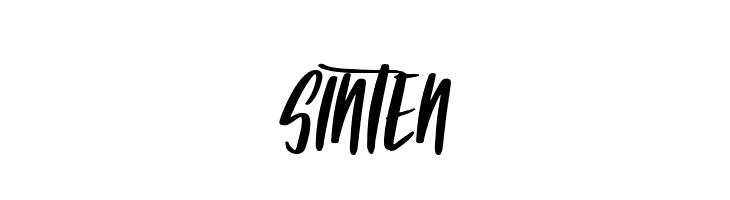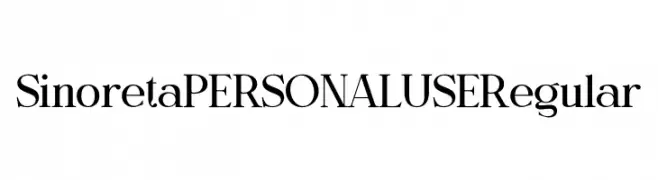
A classic serif font with elegant strokes and refined details.
A playful, hand-drawn style font with bold, rounded characters.
A bold, hand-drawn font with textured, dynamic strokes.
Handwritten script font with a playful style.
A playful and elegant script font with whimsical flourishes and medium contrast.
A lively, cursive handwritten font with fluid strokes and a personal touch.
A bold, expressive script font with elegant, flowing letterforms.
A bold, expressive script font with flowing, cursive design.
A bold, expressive handwritten font with dynamic strokes.